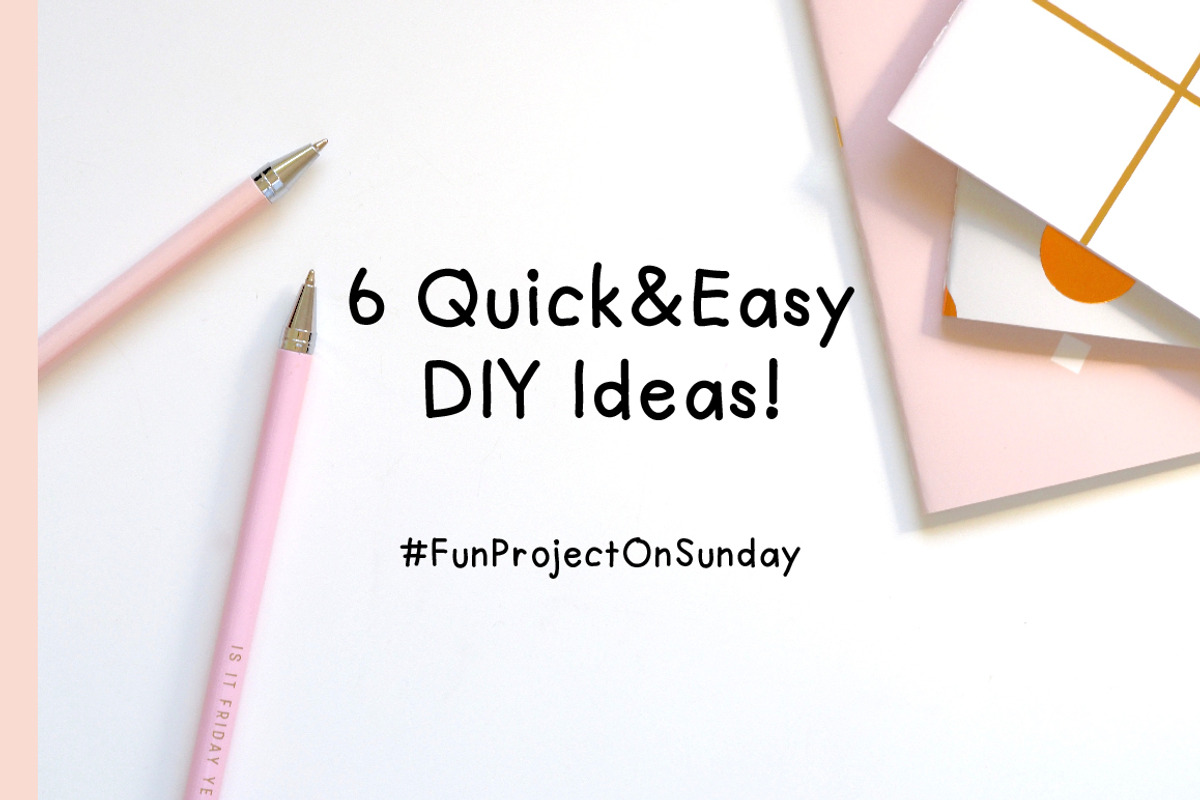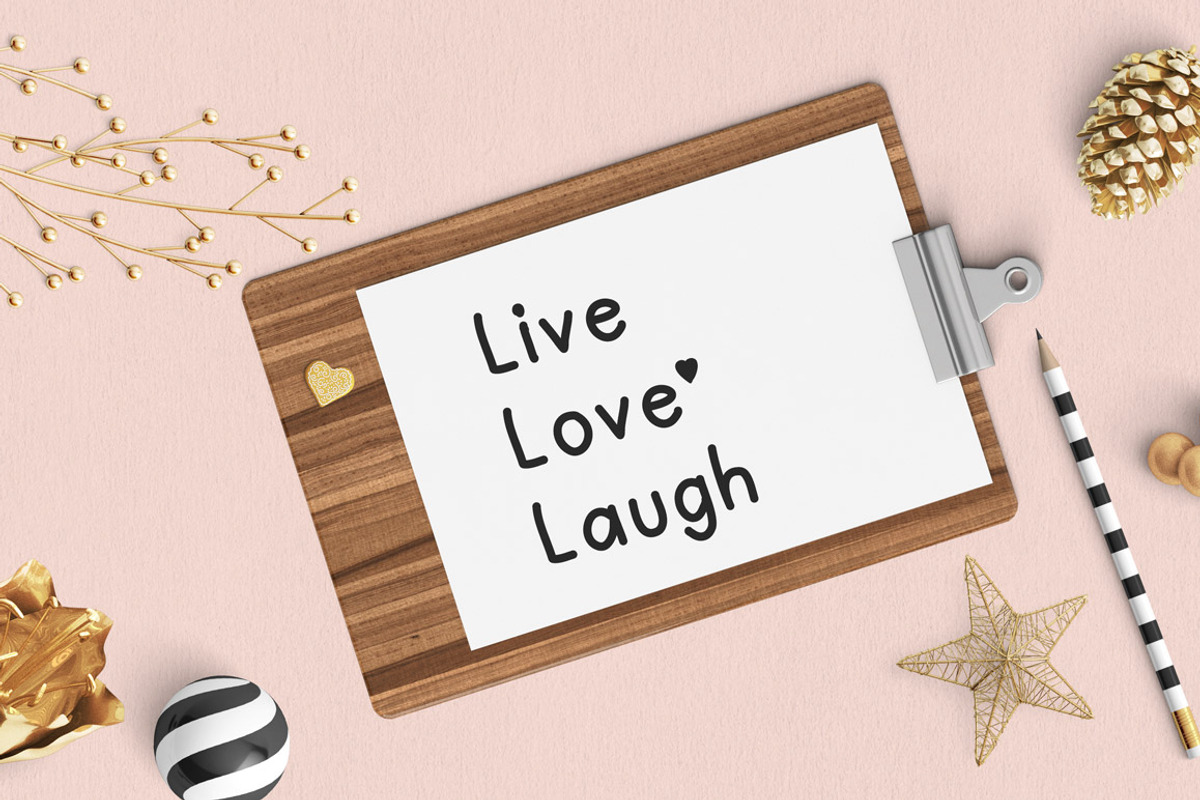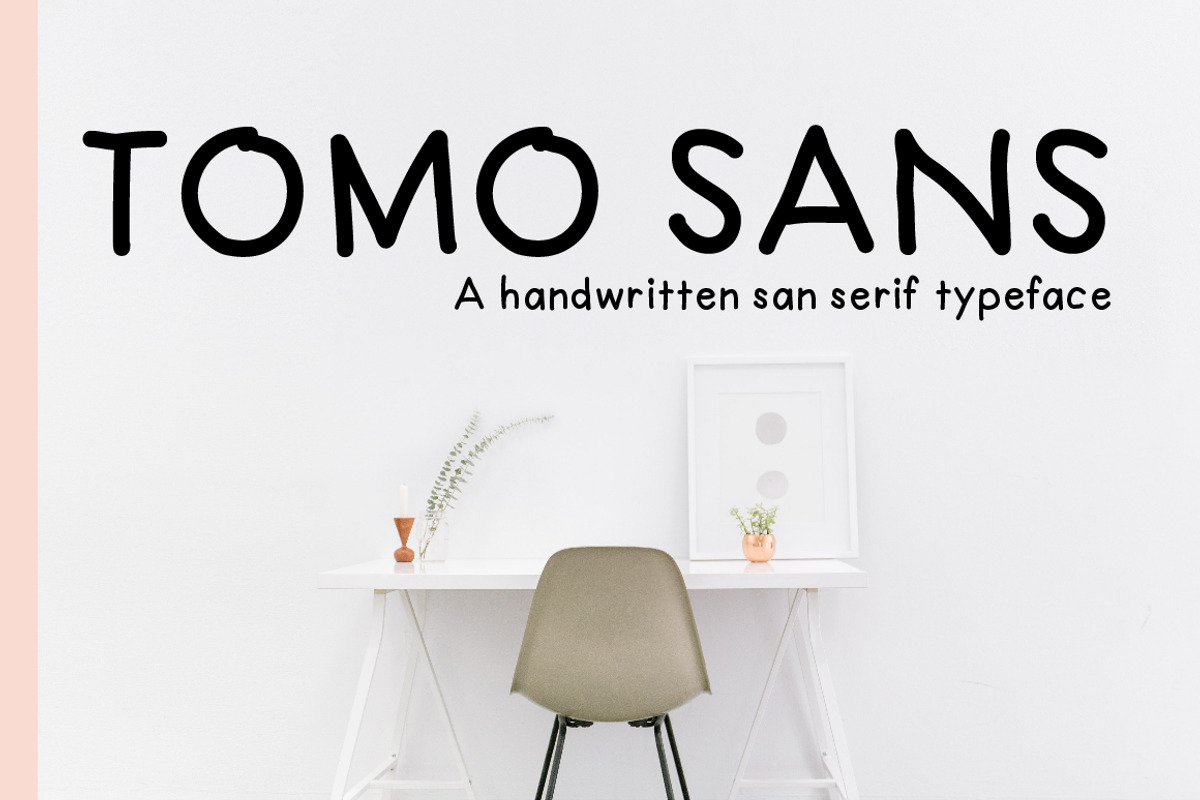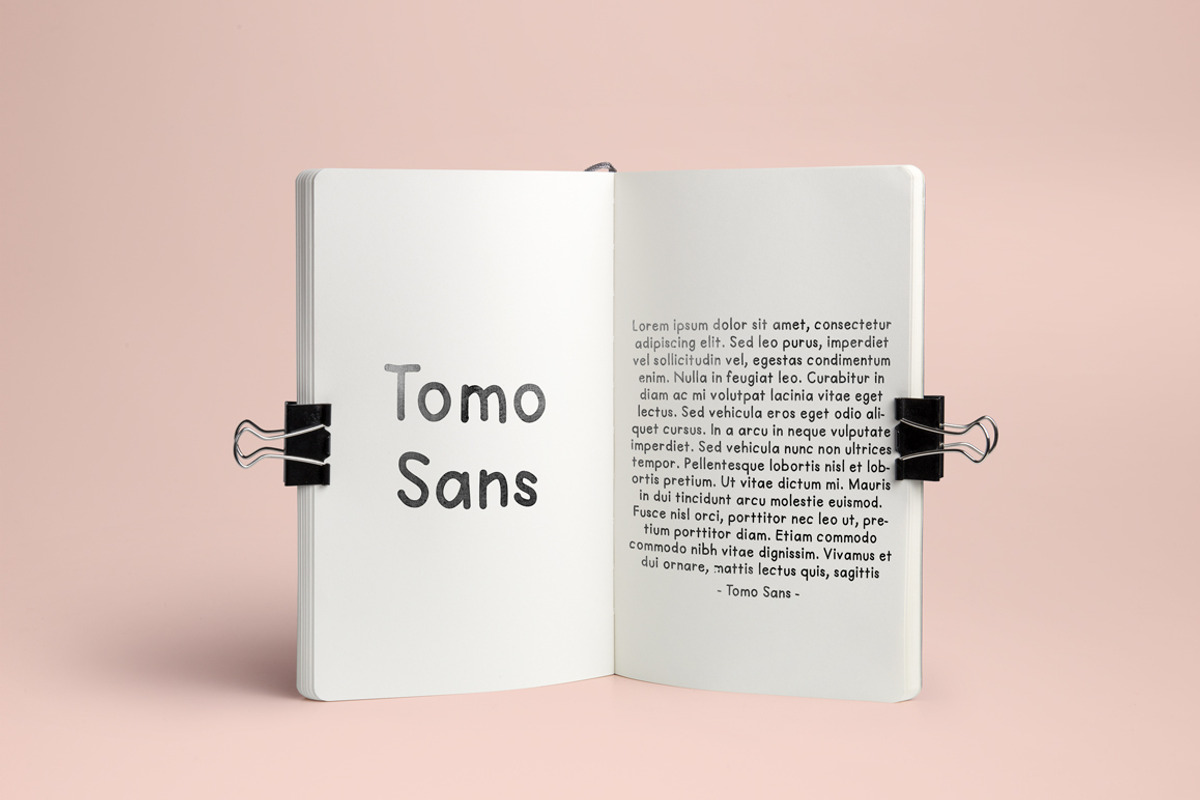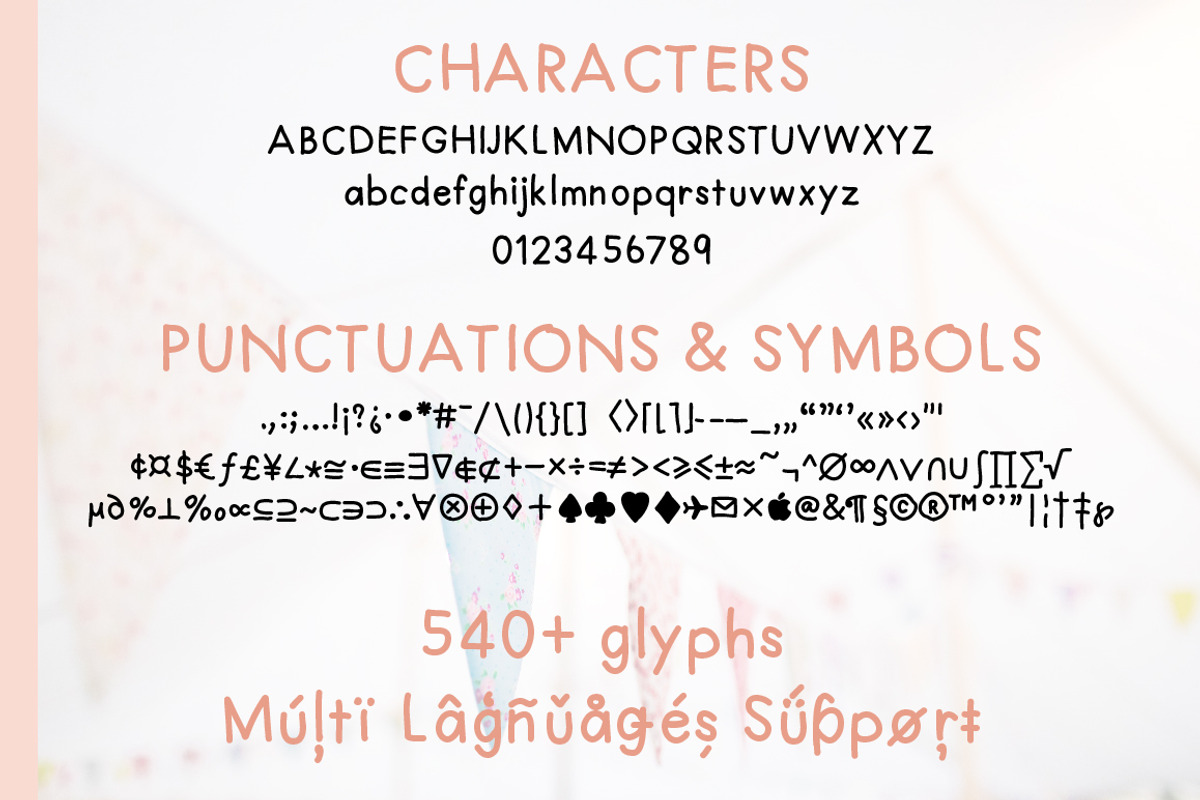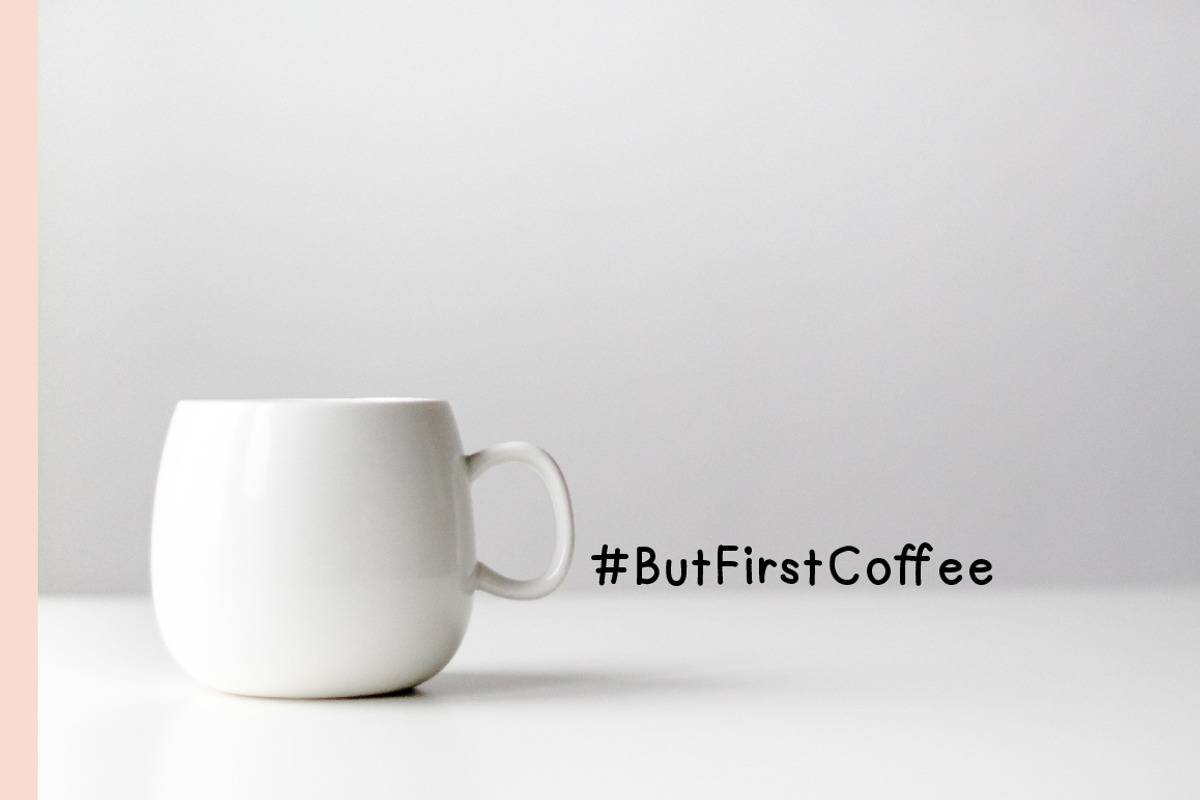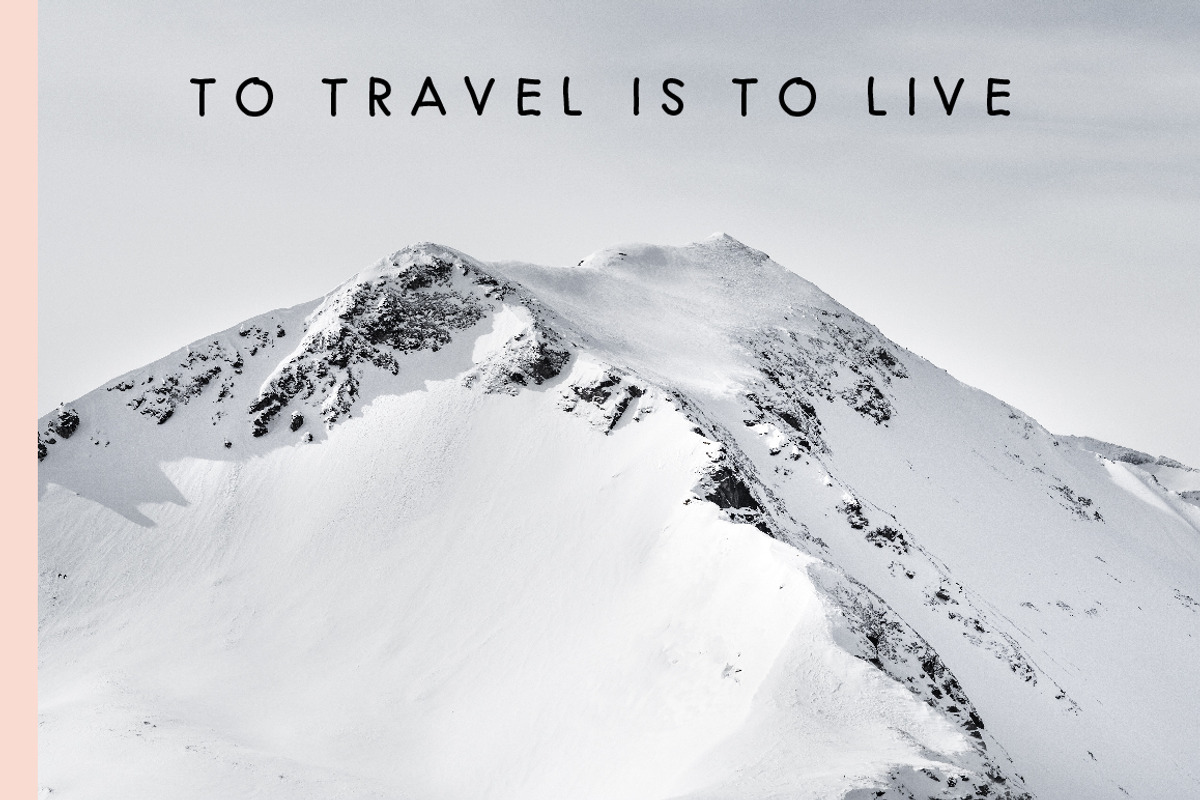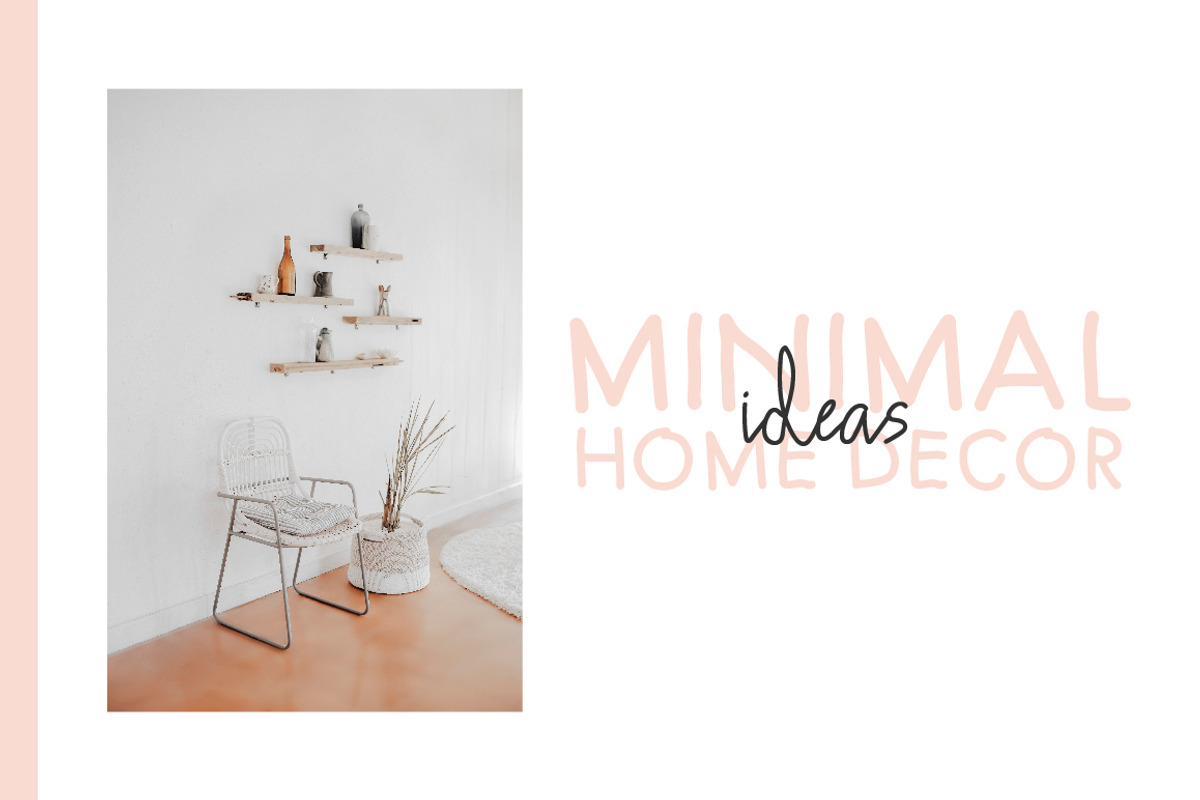
TomoSans Sans Serif Typeface
I would like to introduce TomoSans, the handwritten san serif typeface
TomoSans is a sans serif typeface with rounded edges, giving off a chill, informal and clean vibe. It can be used as a cute minimal-style header display or as a stylish text for craft, DIY or kids related project.
Standard English(A-Z, a-z)
Multi-languages supported, numbers(0-9), punctuations
- 540+ glyphs